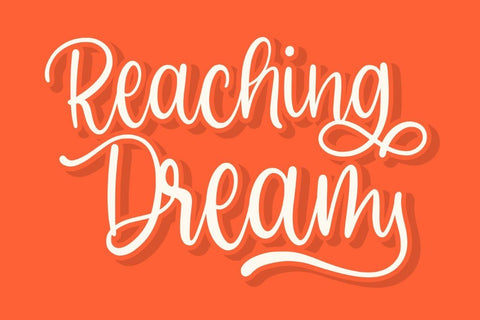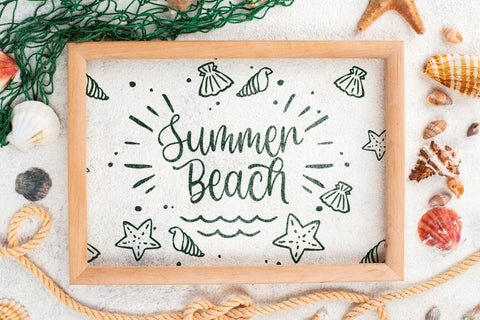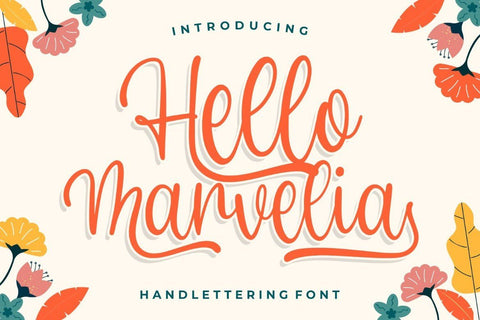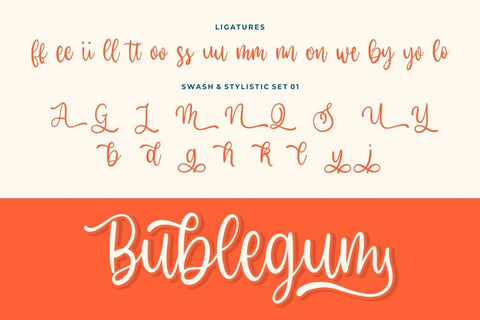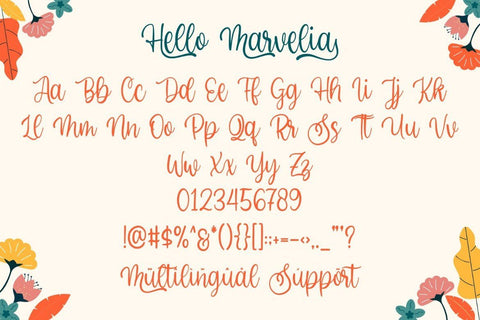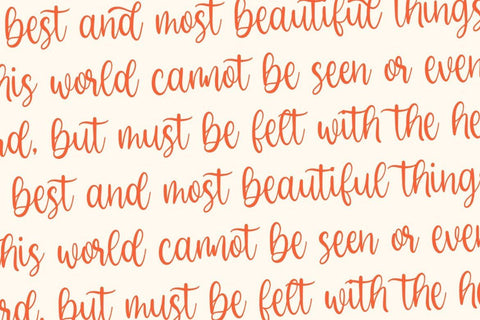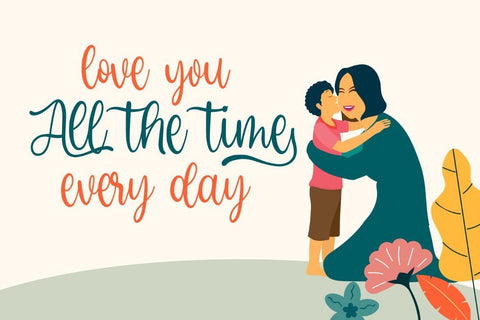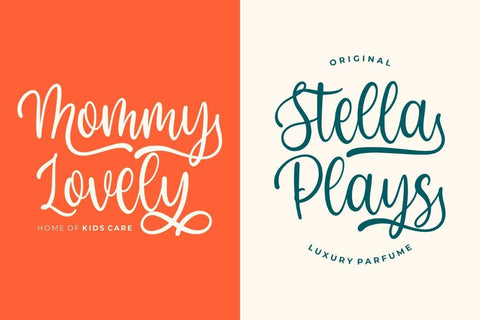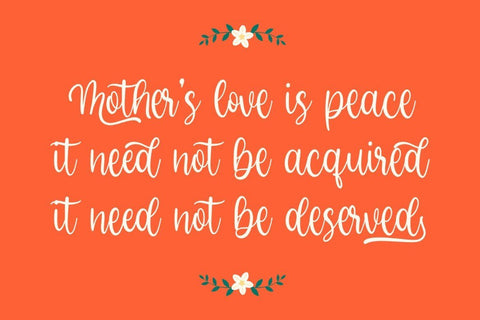
Hello Marvelia – Handlettering Font
Produly Present Hello Marvelia – Handlettering Font
Hello Marvelia – Handlettering Font make from handlettering ideas in typeface. This font includes full of Alphabetical glyphs, Numerals, and punctuation. This is so perfect for invitations, monograms, wedding, fashion, branding, label, handlettering or logotype.
- Ligatures and Swashes in Opentype feature
- Very great for branding, logotype, handletteing, invitations, or fashion branding.